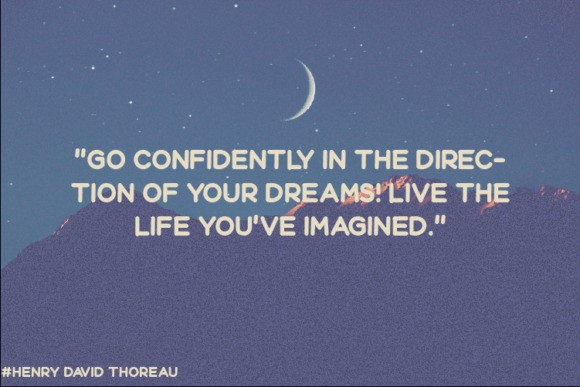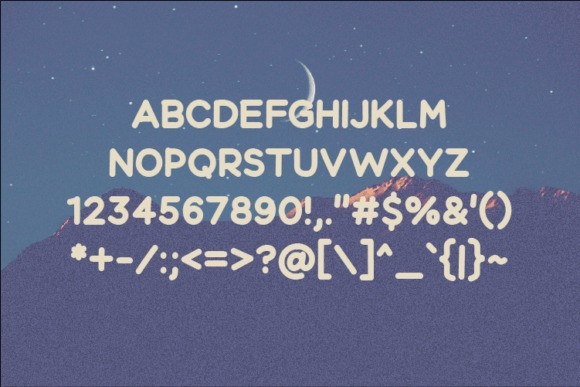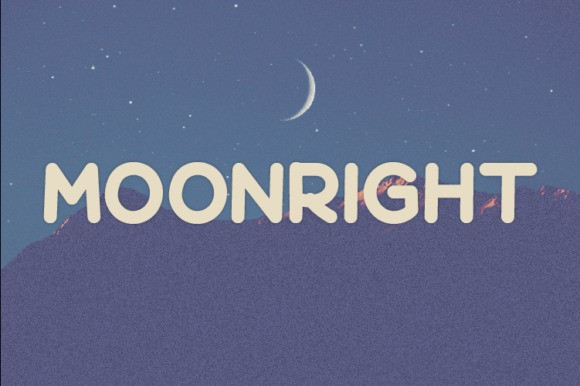
Moonright Font
Moonright Display Font is a quirky and playful all-caps handwritten font. Whether you’re using it for crafts, digital design, presentations, or making greeting cards, this font has the potential to become your favorite go-to font, no matter the occasion.